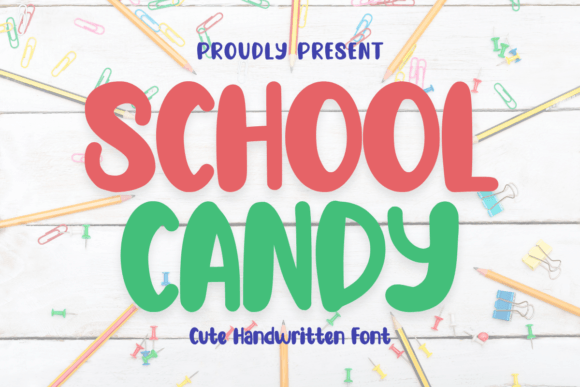
Welcome to the world of School Candy Font, a display font family that oozes charm and playfulness. Created by the talented team at Minimalist Eyes, this captivating font is a handwritten masterpiece that brings a touch of whimsy and delight to your digital creations.
School Candy Font is not just another font; it's an invitation to express your creativity and add a personal touch to your designs. Whether you're crafting a modern app, designing a captivating logo, or simply adding a dash of fun to your social media posts, School Candy Font is the perfect choice.
With its natural and unique style, School Candy Font seamlessly blends modern aesthetics with a touch of nostalgia. Its friendly and approachable vibe makes it ideal for a wide range of projects, from children's books and invitations to branding and packaging design.
Dive into the world of School Candy Font and let your imagination run wild. Explore the endless possibilities that this versatile font offers and elevate your designs to new heights. Its user-friendly nature makes it perfect for both experienced designers and beginners alike.
So, why settle for ordinary when you can have extraordinary? Embrace the beauty of School Candy Font and unleash your creative potential. Let your designs stand out, capture hearts, and leave a lasting impression on your audience.